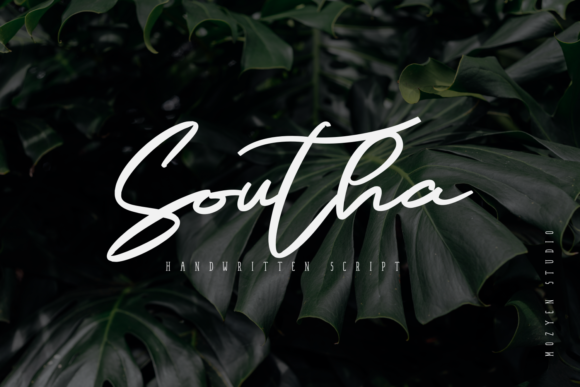
Escape the ordinary and embrace the allure of Southa Font, a captivating script font family that will transform your designs into masterpieces. Step into a world of elegance and grace as you discover the infinite possibilities that await you with Southa.
With its distinctive handwritten style, Southa takes you on a journey through creativity, evoking emotions and leaving a lasting impression. Each letter is a brushstroke of art, a testament to the beauty that lies in simplicity. Southa's fluid curves and delicate swashes dance across your designs, adding a touch of sophistication that sets your work apart.
Unleash your imagination and let Southa guide you to new heights of expression. Whether you're a designer seeking to captivate your audience or a creative spirit seeking your unique voice, Southa is your muse. Its versatility knows no bounds, adapting seamlessly to a wide range of design projects. From enchanting invitations to captivating logos, from stunning social media posts to elegant branding materials, Southa elevates your designs with effortless grace.
Imagine the awe-inspiring beauty of your interior design projects adorned with the charm of Southa. Picture the walls adorned with quotes and affirmations, each letter a work of art. Envision the elegant menus in your restaurant, where every dish is presented with a touch of artistry. Experience the allure of Southa in your branding materials, where your company's message is conveyed with sophistication and style.
With Southa Font, you have the power to transform the ordinary into the extraordinary. Its captivating style and endless possibilities will leave you breathless. Embrace the magic of Southa today and embark on a creative journey that knows no bounds.